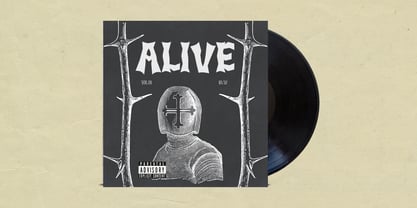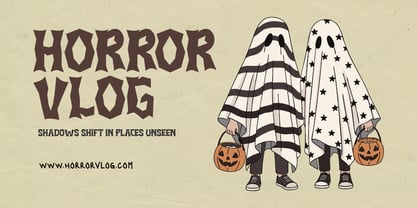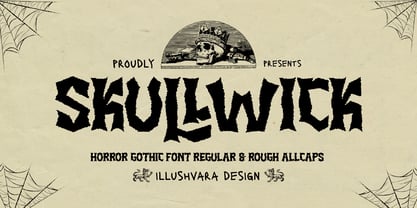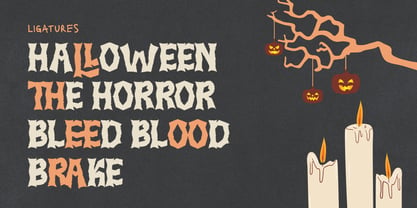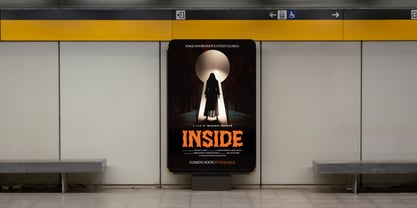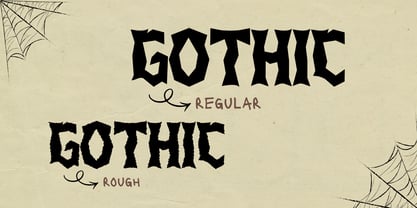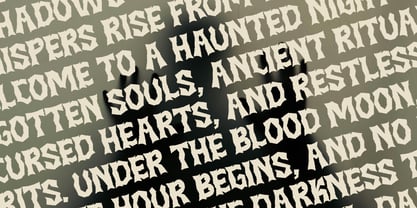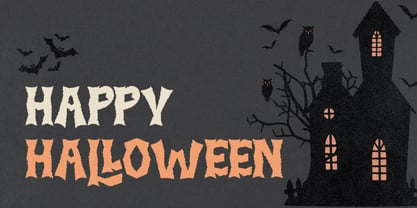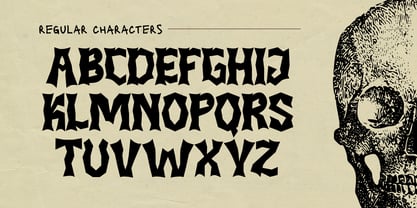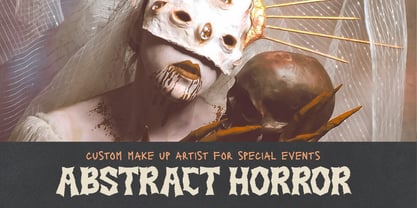
Skullwick
von Illushvara
Die Schriftfamilie Skullwick wurde von Bayu Suwirya entworfen und von Illushvara veröffentlicht. Skullwick enthält 2 Stile und Familienpaketoptionen. Mehr über diese Familie
Skullwick is a bold horror gothic display font inspired by dark rituals, haunted nights, and vintage Halloween aesthetics. It comes with two distinct styles: Regular Clean for a sharp, polished look and Rough for a distressed, grungy character. Perfect for Halloween posters, horror artwork, gothic branding, music events, band merchandise, album covers, ogos, packaging, and other dark-themed creative projects.
Designer: Bayu Suwirya
Foundry: Illushvara